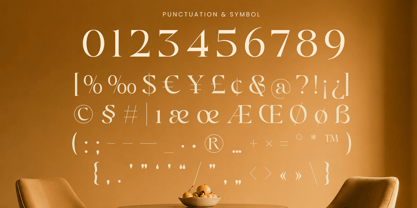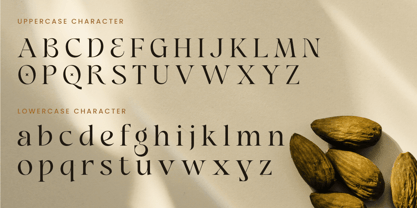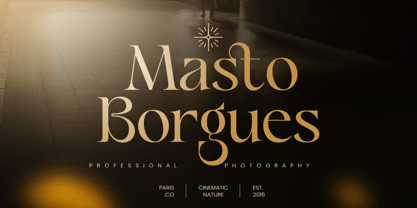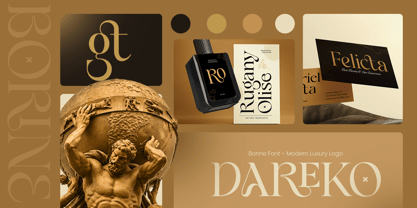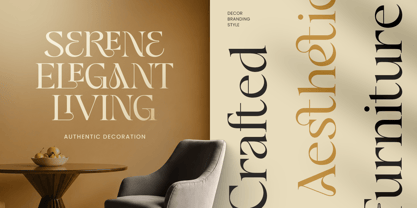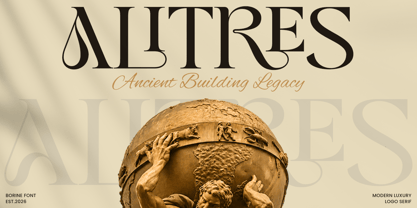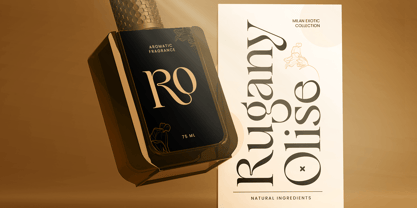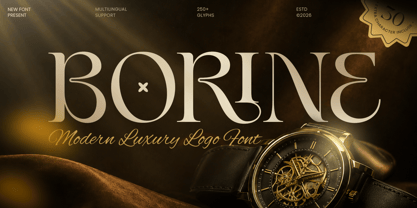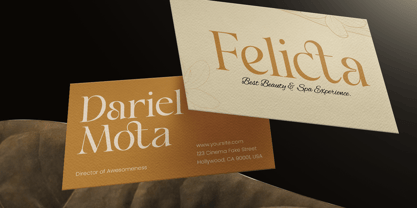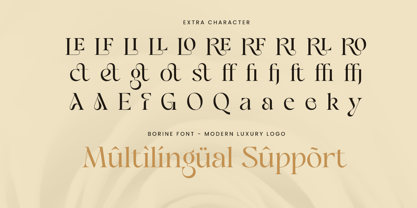
Borine
The Borine Font Family was designed by Zamroni Hamzah and published by Sensatype Studio. Borine contains 1 styles. More about this family
BORINE is a modern luxury logo font designed to create sophisticated and memorable brand identities. With refined letterforms, elegant proportions, and a contemporary luxury aesthetic, this typeface is perfect for premium logos, fashion branding, editorial layouts, packaging, and high-end visual projects.
Crafted for designers who value elegance and simplicity, BORINE blends modern design principles with timeless luxury details. Its polished character shapes help every wordmark and headline feel exclusive, confident, and visually refined.
Whether used for fashion labels, beauty brands, boutique identities, wedding stationery, or premium marketing materials, BORINE delivers a stylish and professional appearance across both print and digital media.
BORINE – Modern Luxury Logo Font Features
• Modern luxury style with elegant logo-focused letterforms
• Perfect for branding, logos, packaging, editorials, and premium designs
• Refined proportions with a sophisticated visual presence
• Ideal for fashion, beauty, lifestyle, wedding, and boutique industries
• Uppercase, lowercase, numerals, and punctuation included
• OpenType features for enhanced typographic styling
Multilingual support for
Afrikaans, Albanian, Asu, Basque, Bemba, Bena, Breton, Chiga, Cornish, Dutch, English, Estonian, Filipino, Finnish, Friulian, Galician, German, Gusii, Indonesian, Irish, Italian, Kabuverdianu, Kalenjin, Kinyarwanda, Luo, Luxembourgish, Luyia, Machame, Makhuwa-Meetto, Makonde, Malagasy, Manx, Morisyen, North Ndebele, Nyankole, Oromo, Portuguese, Quechua, Romansh, Rombo, Rundi, Rwa, Samburu, Sango, Sangu, Scottish Gaelic, Sena, Shambala, Shona, Soga, Somali, Spanish, Swahili, Swedish, Swiss, and more.
Create a premium visual identity with BORINE – the perfect modern luxury logo font for elegant branding, sophisticated packaging, and timeless design.